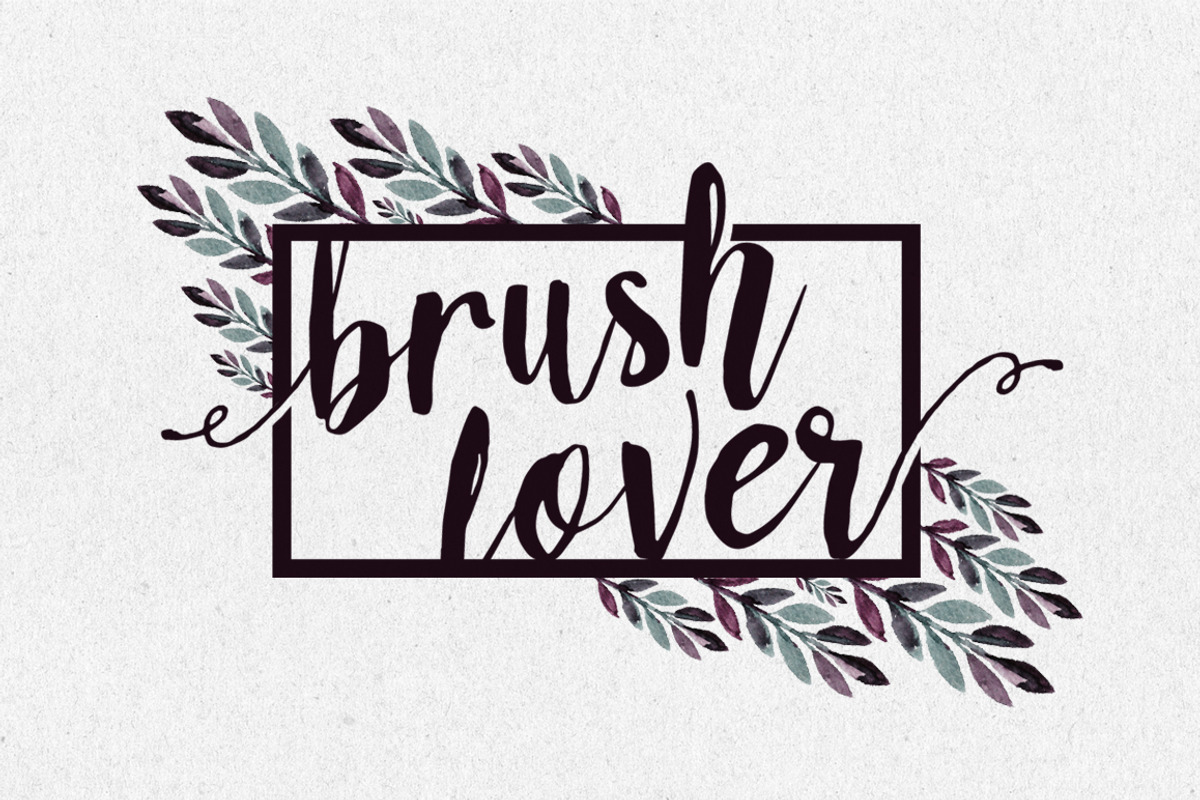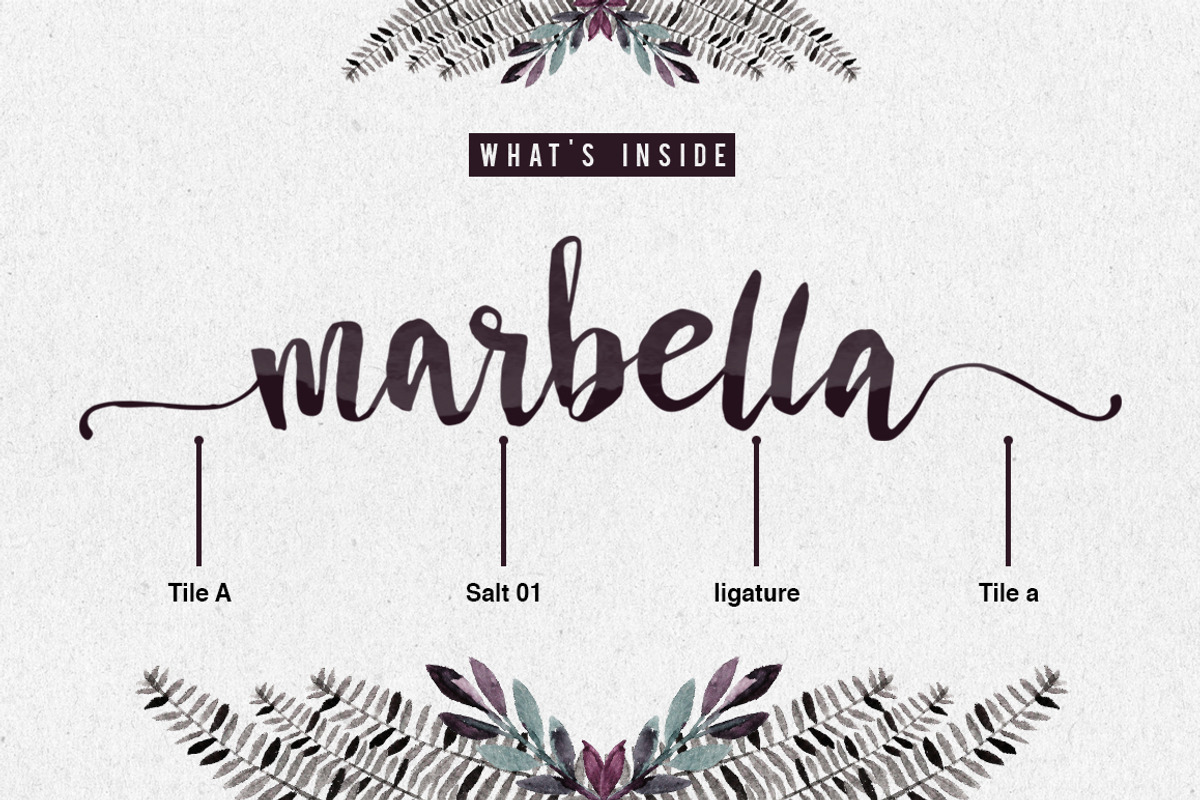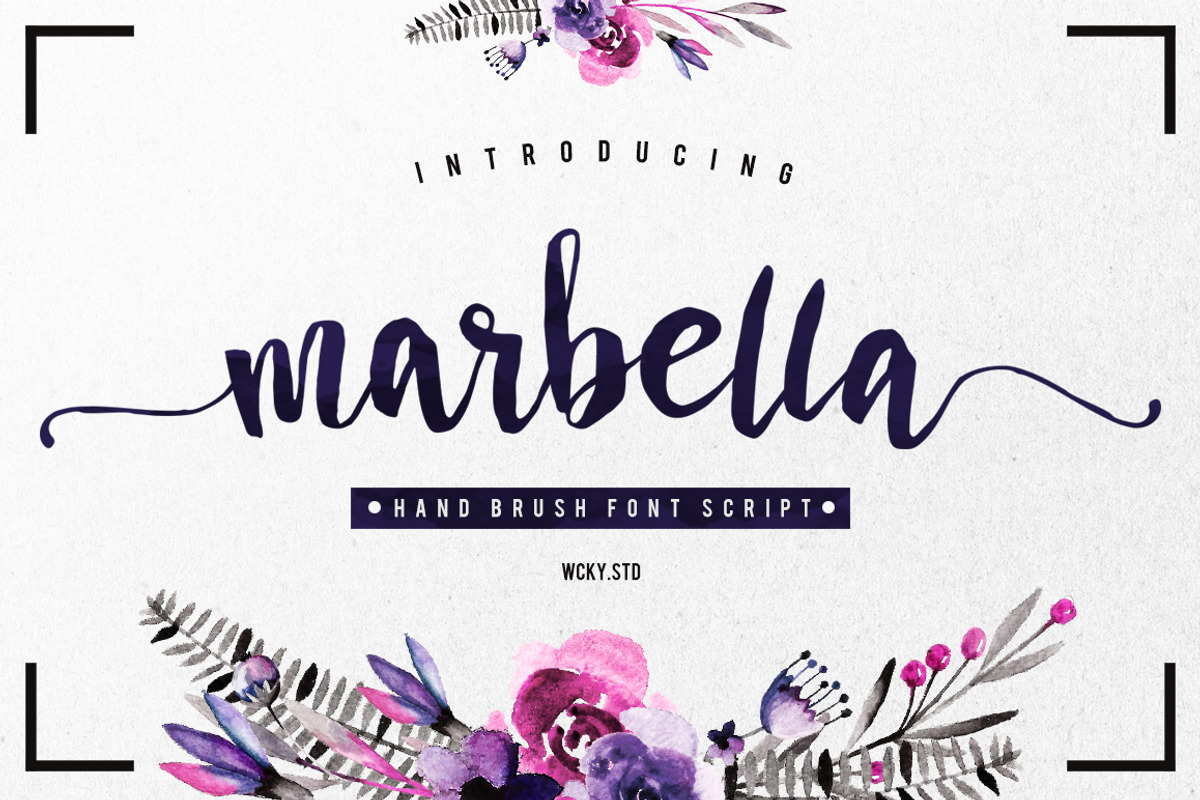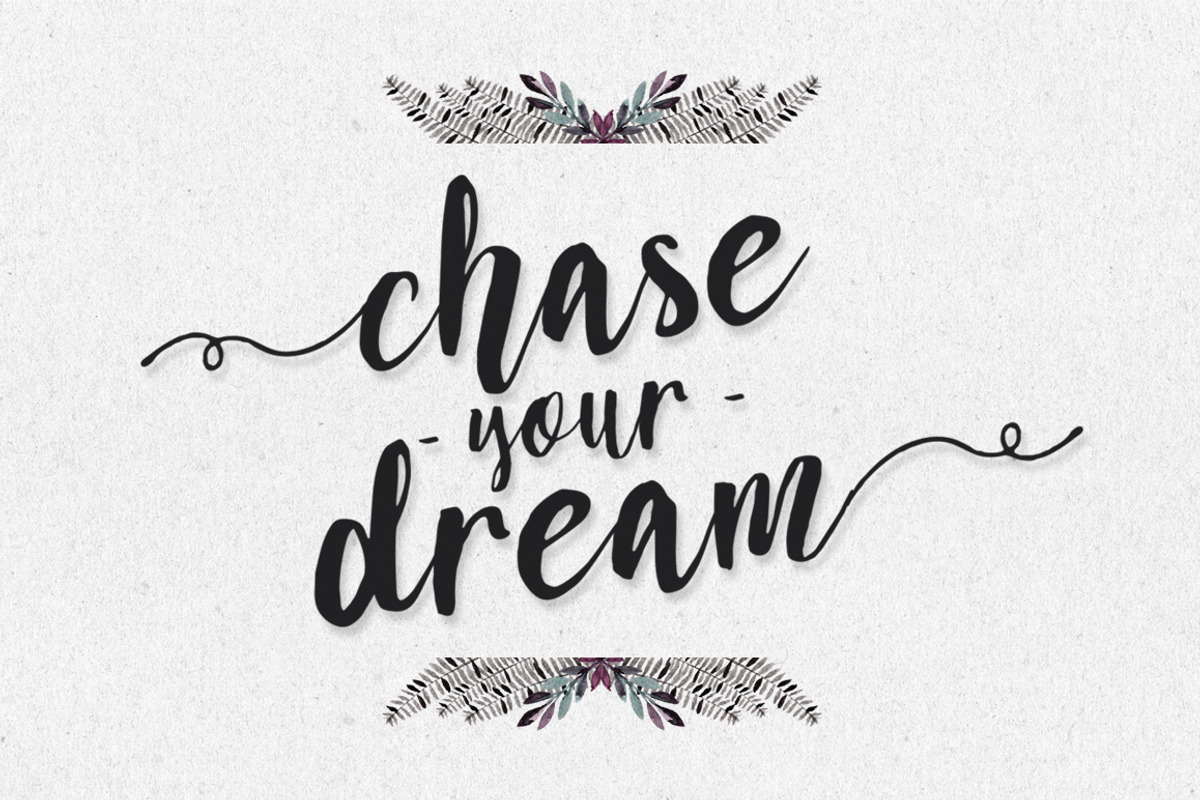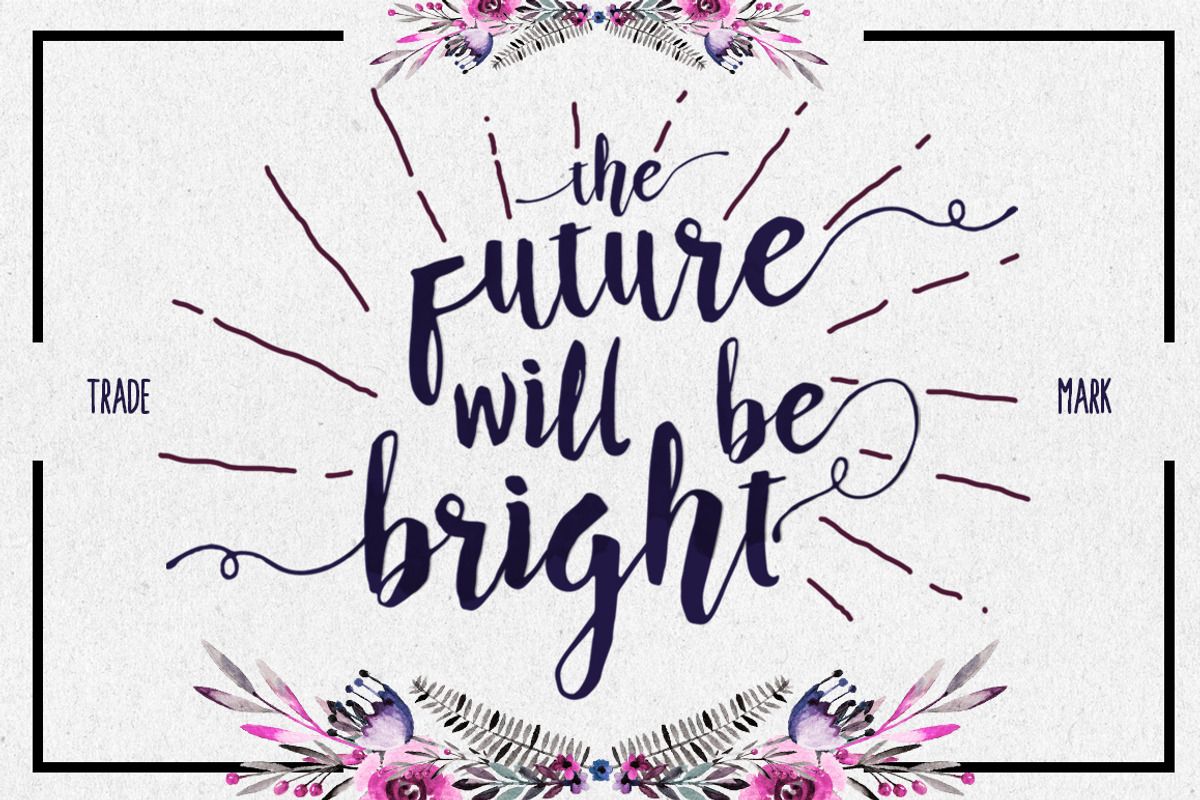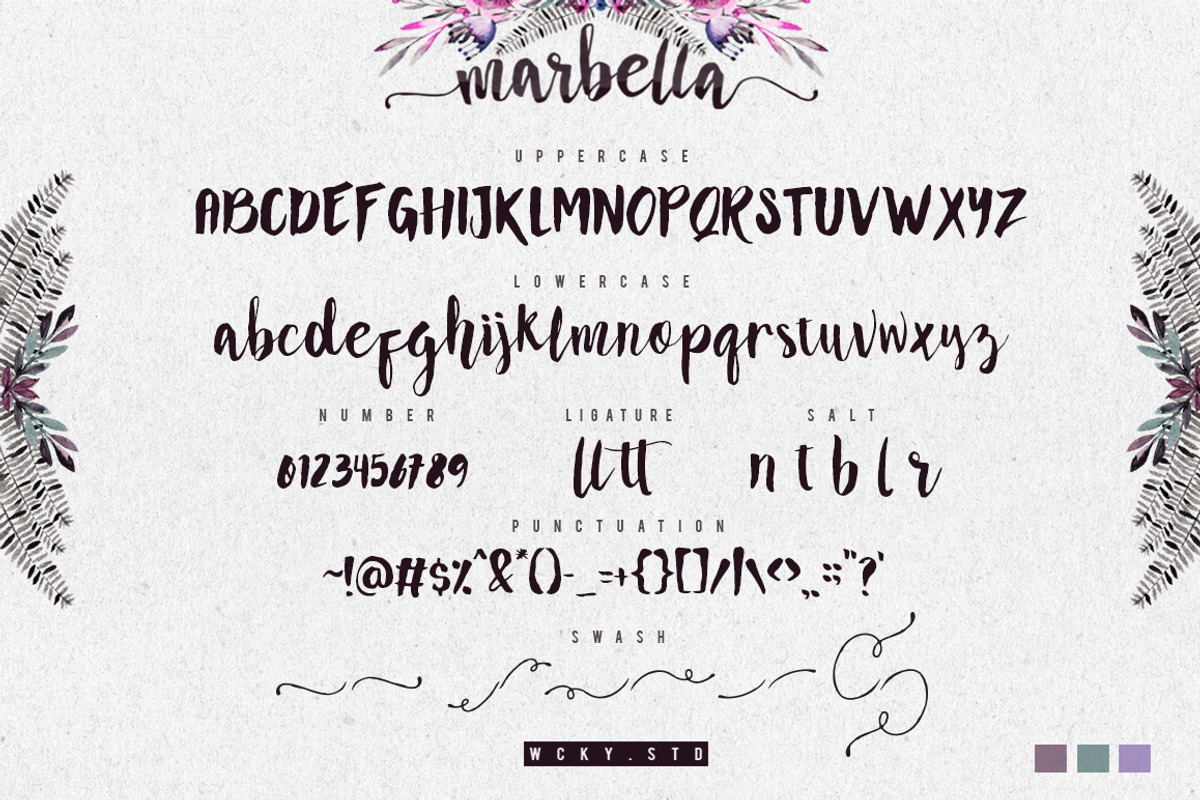
Marbella Typeface
Marbella Typeface by WCKY.STD is a font selected for branding, posters, packaging, typography.
Why Marbella Typeface is worth a look
Marbella Typeface by WCKY.STD fits naturally into Branding, posters, packaging, typography.